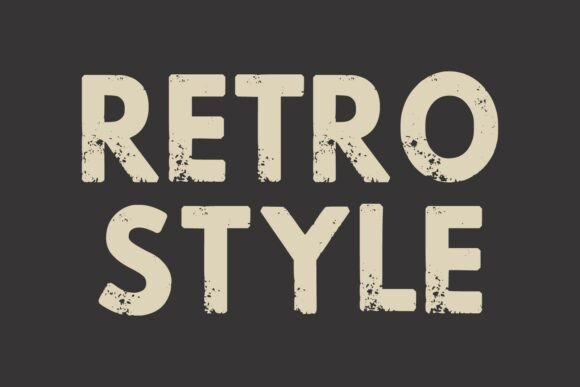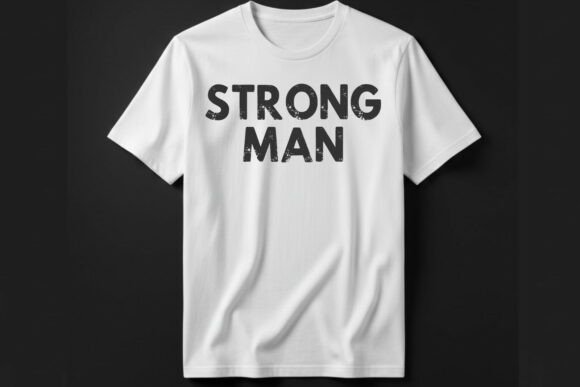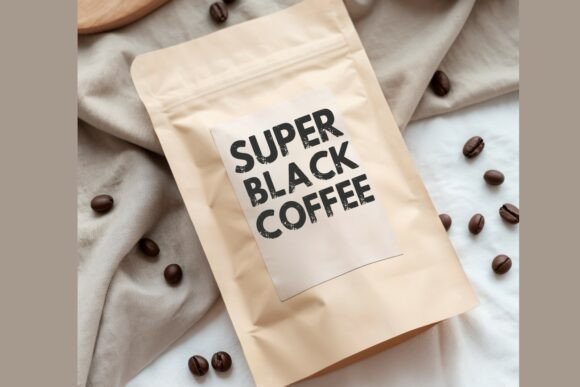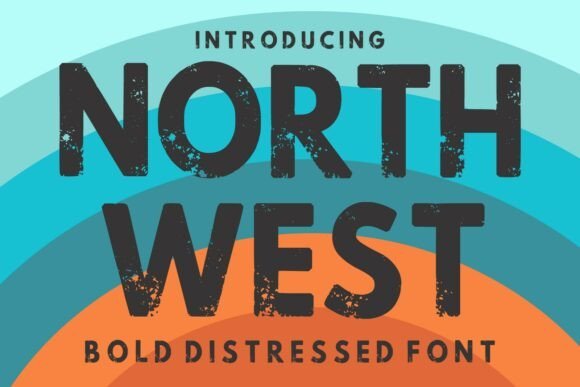
Introduction to North West Font
North West is a bold distressed display font featuring a rugged, textured style that adds character and edge to your designs.
With its strong letterforms and worn vintage effect, this typeface is perfect for posters, branding, logos, apparel, packaging, and standout headlines Ideal for projects that need a raw, urban, grunge, or retro-inspired aesthetic.
Key Features of North West Font